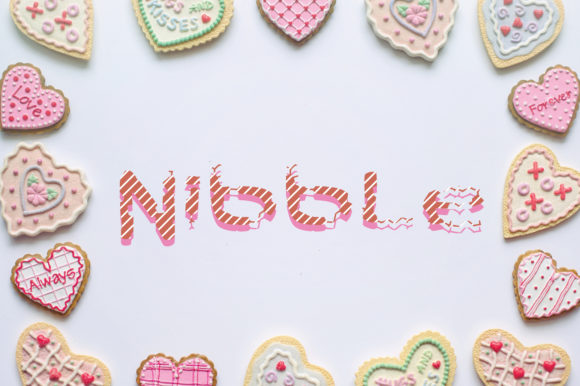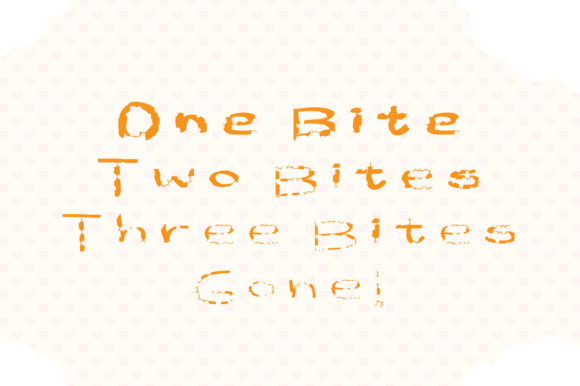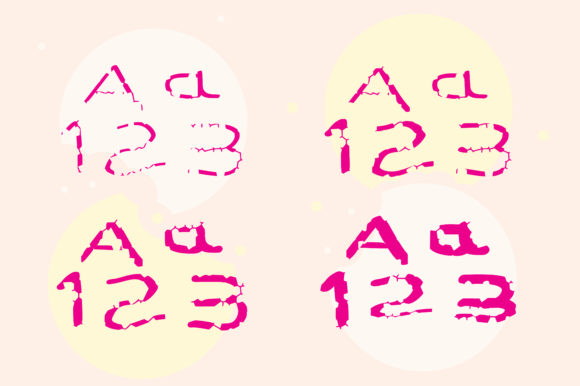
Nibble Font
Peksih? This distorted wide sans serif font with missing elements that look like someone has been nibbling at them, comes in four different weights.